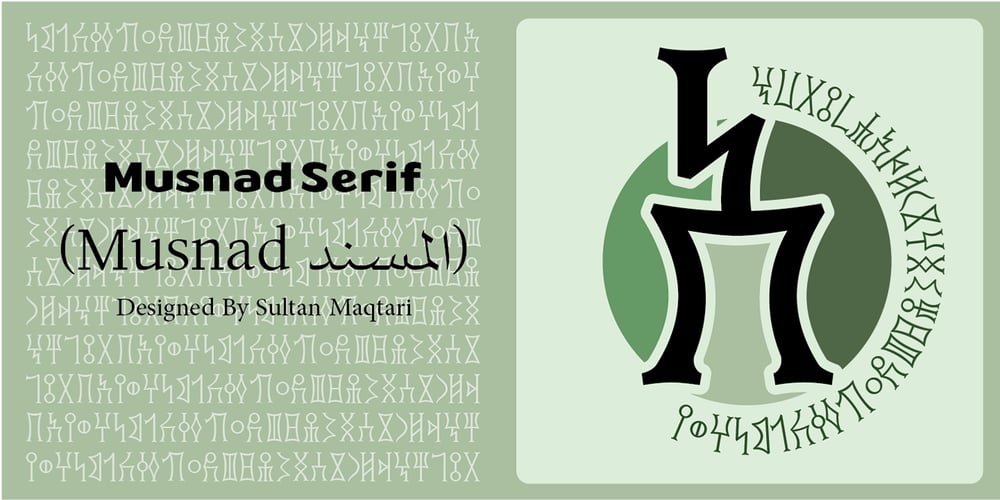
Musnad Serif Font Family was designed by Sultan Maqtari and published by Sultan Fonts. Musnad Serif contains 2 styles and family package options. About this font familyMusnad Serif Is Old South Arabian typeface for desktop applications ,for websites, and for digital ads. Musnad font family contains two types: Rigular and bold.The font includes a design that supports Latin, Arabic, and Old South Arabian language systems.